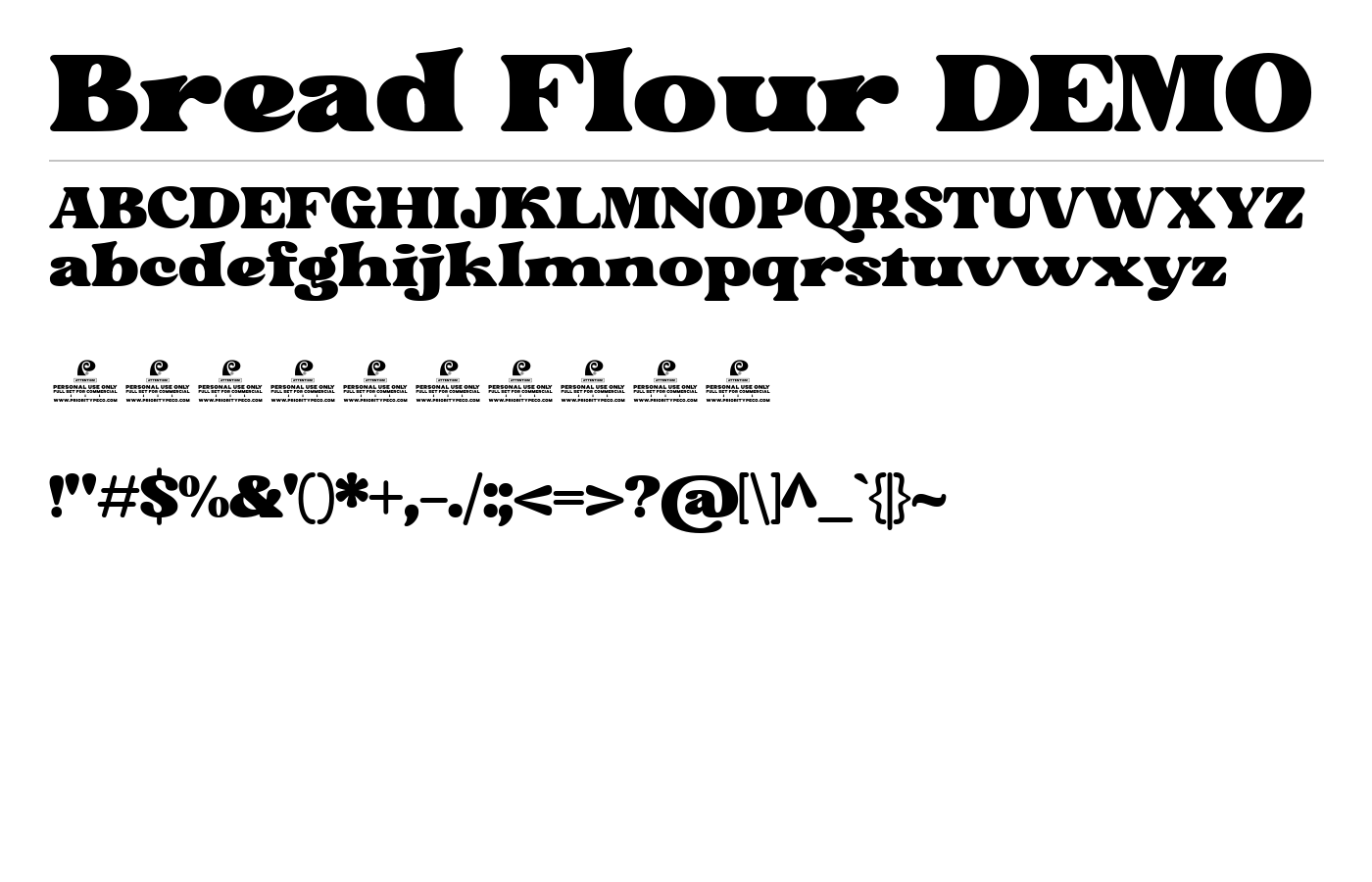
Bread Flour DEMO is a bold slab serif font with a playful and slightly vintage character. Its thick, sturdy strokes and rounded serifs give it a friendly and approachable feel, making it perfect for eye-catching headlines, packaging, and branding that wants to convey warmth and charm. This font works well in designs that need a strong personality while maintaining readability and a touch of nostalgia.
Bread Flour DEMO Font
About Bread Flour DEMO Font
| Font family | Bread Flour DEMO Font |
| Designer | Prio Nurokhim Aji |